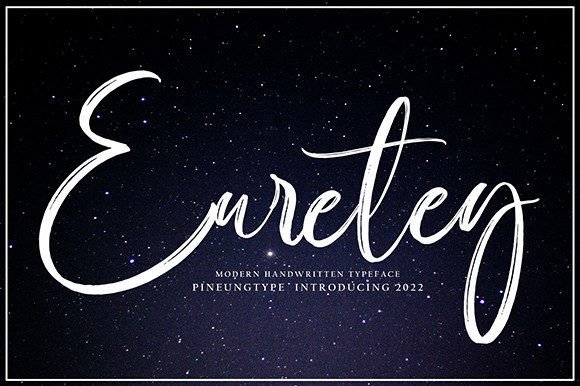
Welcome to the world of Euretey Font, where elegance and charm intertwine to create a script font that will leave you breathless. This captivating collection, proudly presented by Pineungtype & Missinklab, is a testament to the artistry of handwritten calligraphy, capturing the essence of romance and timeless beauty.
Euretey is more than just a font; it's an invitation to embark on a journey of creativity. Its delicate strokes, reminiscent of a skilled calligrapher's hand, will elevate your designs to new heights. With Euretey, you'll have the power to transform ordinary words into enchanting tales, where every letter dances with grace and emotion.
Picture your wedding invitations adorned with Euretey's flowing script, carrying the promise of a love story unfolding. Or envision your branding materials infused with its timeless charm, making a lasting impression on clients and customers alike. The possibilities are endless, as Euretey's versatility extends from logos and posters to blog headers and stationery.
With Euretey by your side, you'll discover a world where creativity knows no bounds. Its ability to add a touch of sophistication to any project is unparalleled. Whether you're a seasoned designer or just starting, Euretey will become your trusted companion, guiding you to create designs that resonate with your audience.
So, dear creative souls, we invite you to embrace Euretey and unlock the magic hidden within your words. Let its elegant curves and sweeping lines captivate your senses and inspire your imagination. Download Euretey today and embark on a journey of self-expression, where beauty and elegance intertwine to create masterpieces that will stand the test of time.